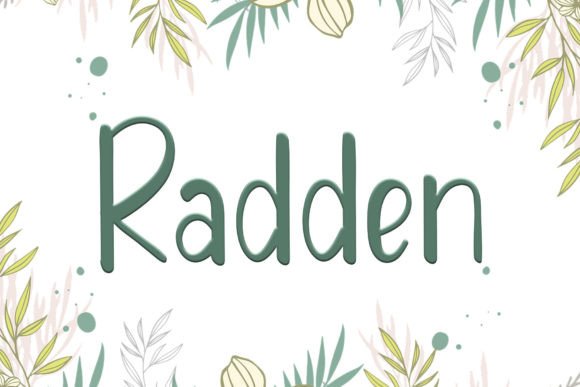
Introducing Radden Font, the ultimate choice for all your creative projects! Designed by giartstudios, this unique and elegant script font is sure to captivate your imagination and elevate your designs to new heights. Whether you're creating wedding invitations, greeting cards, billboards, logos, or business cards, Radden Font is the perfect companion to add a touch of handwritten charm.
One of the standout features of Radden Font is its varied baseline, meticulously crafted to give your designs a natural, hand-made touch. With every stroke, this font exudes elegance and sophistication, making it ideal for any project that requires a personal and authentic feel. Your birthday wishes, heartfelt messages, and inspiring quotes will come to life with Radden Font.
Unleash your creativity with Radden Font's extensive range of glyphs and swashes. This font is PUA encoded, granting you effortless access to a multitude of stylistic alternates and decorative elements. Explore the endless possibilities and effortlessly enhance your designs with flourishes, ligatures, and ornamental touches that will leave a lasting impression.
Imagine the impact Radden Font will have on your designs! Its versatility knows no bounds, making it suitable for a wide range of applications. Whether you're designing for a special occasion, crafting a logo for your business, or adding a handwritten touch to your marketing materials, Radden Font will effortlessly elevate your work and make it stand out from the crowd.
But Radden Font is more than just a font—it's a tool that allows you to express your emotions and connect with your audience on a deeper level. Its elegant curves and graceful strokes evoke feelings of joy, warmth, and nostalgia, making it the perfect choice for capturing the essence of any heartfelt message or celebration.
Don't miss out on the opportunity to transform your designs with Radden Font. Let your creativity flow and watch as your ideas come to life with a touch of elegance and sophistication. Download Radden Font today and embark on a journey of limitless possibilities.